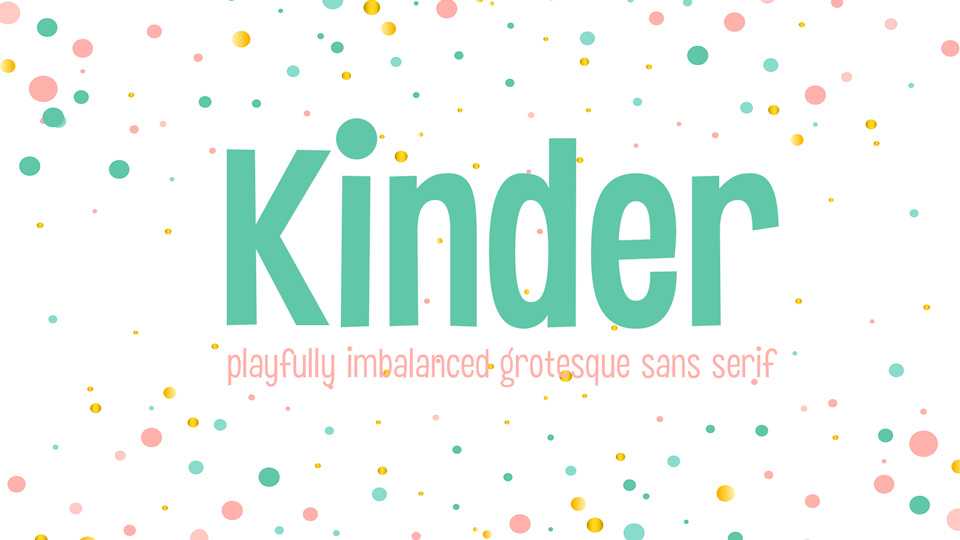
Download Kinder font, a playfully imbalanced grotesque sans serif, reminiscent of American animated films from the 60s in two weights Regular and Bold. Kinder font is ideal for any intentionally playful/informal/frivolous application.
Designer: Backpacker